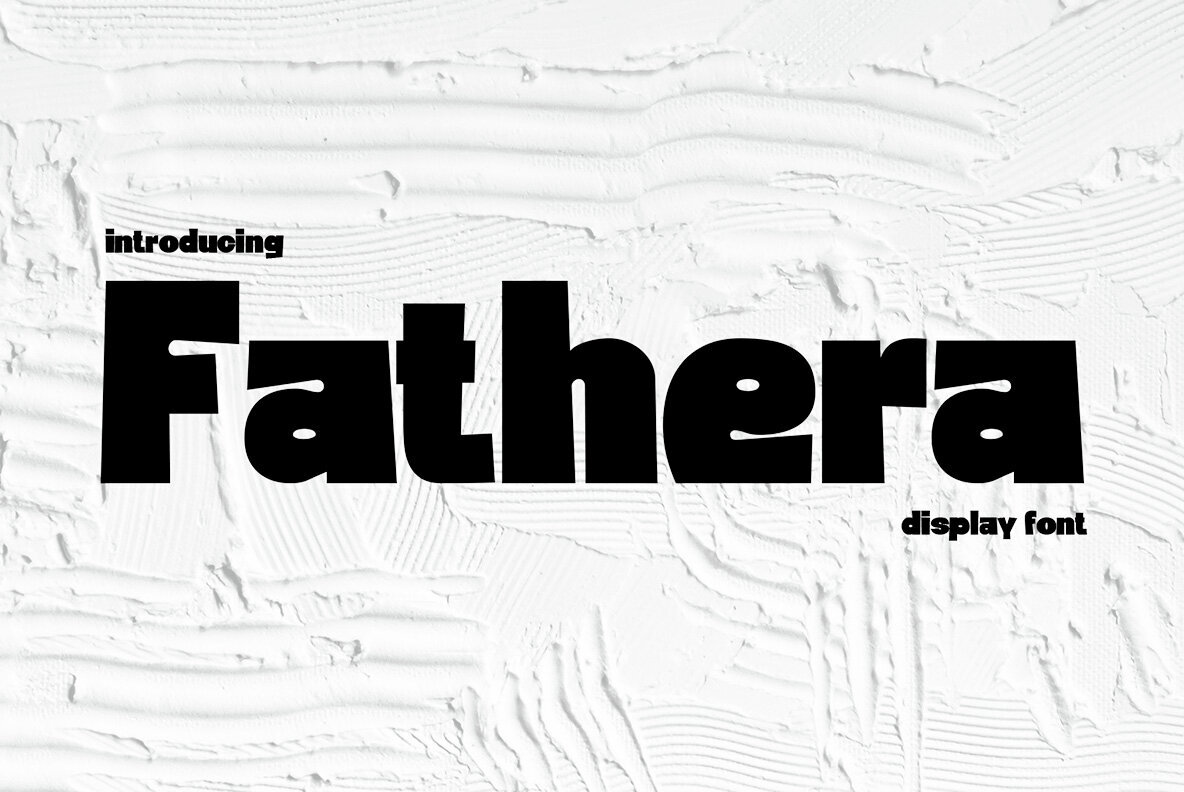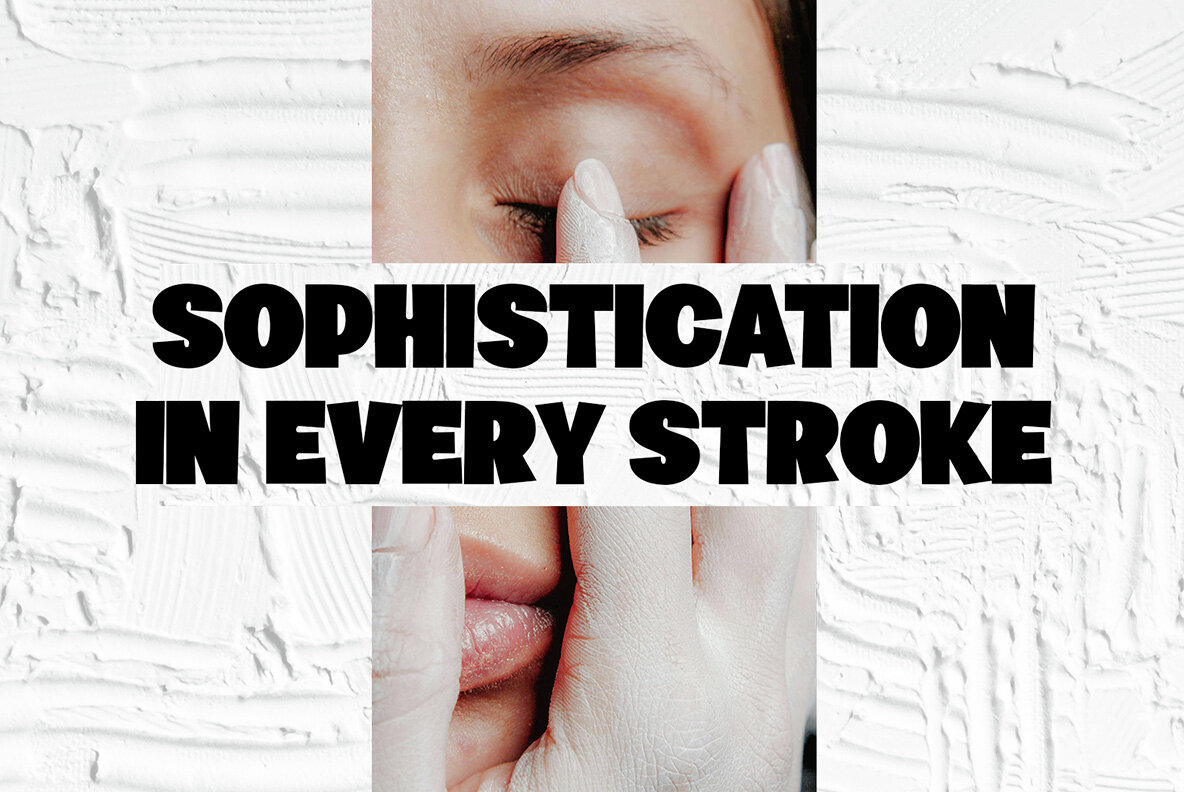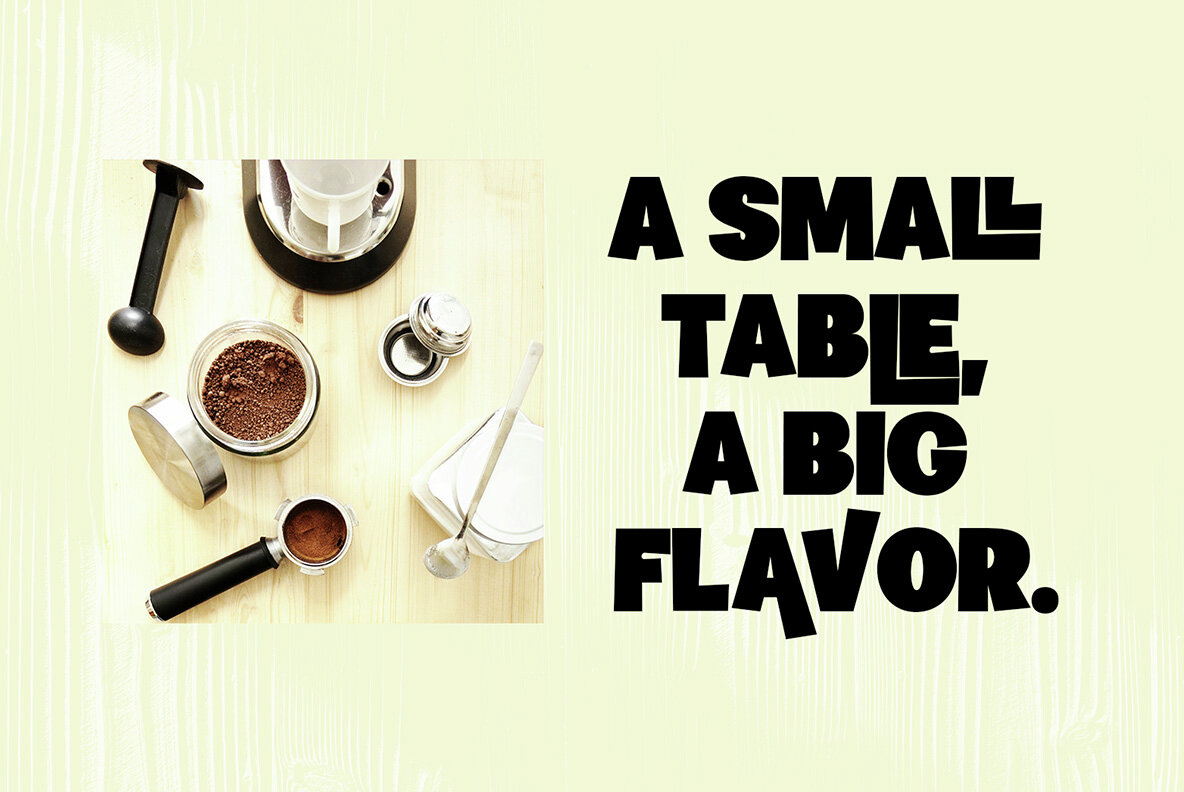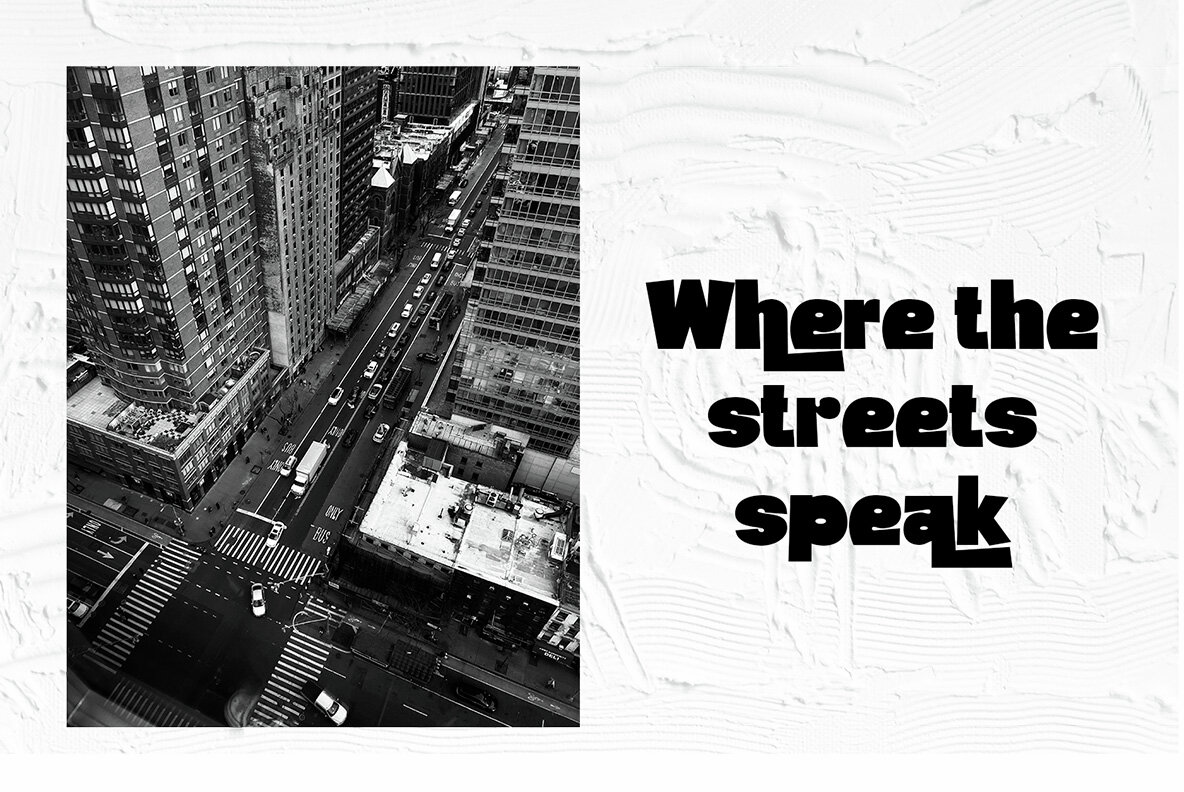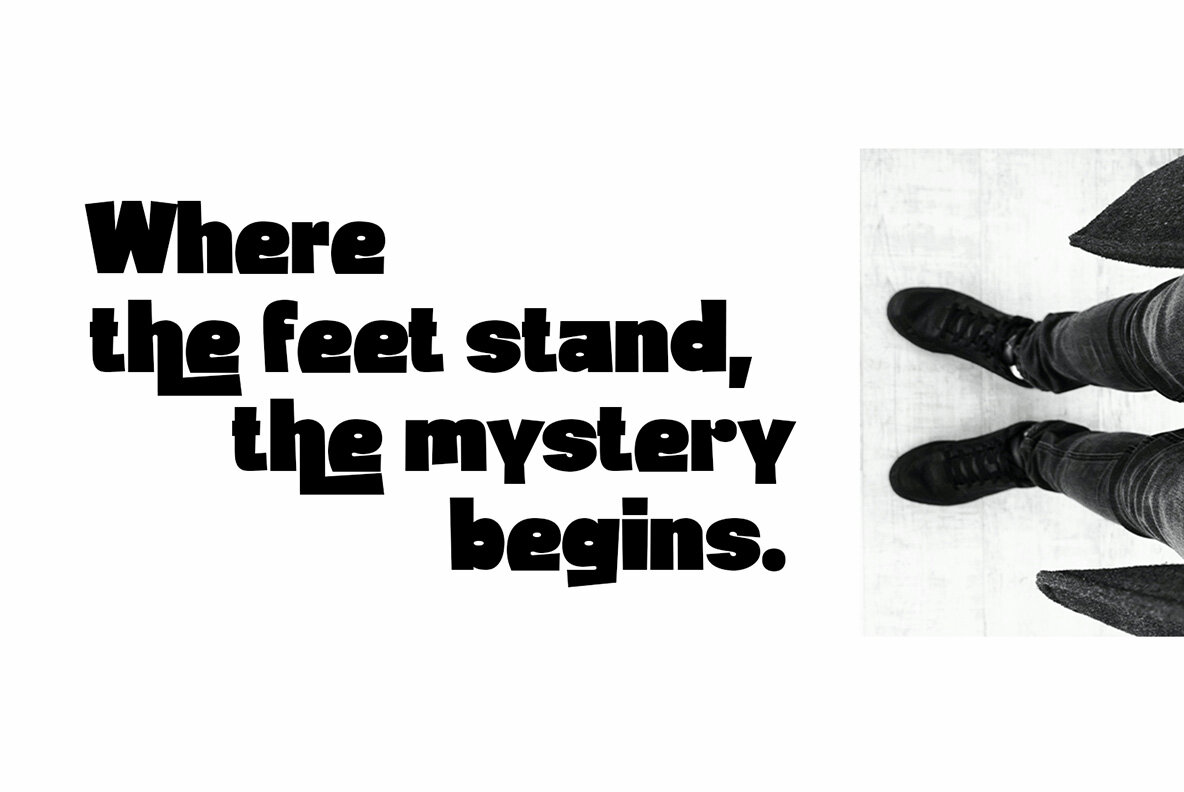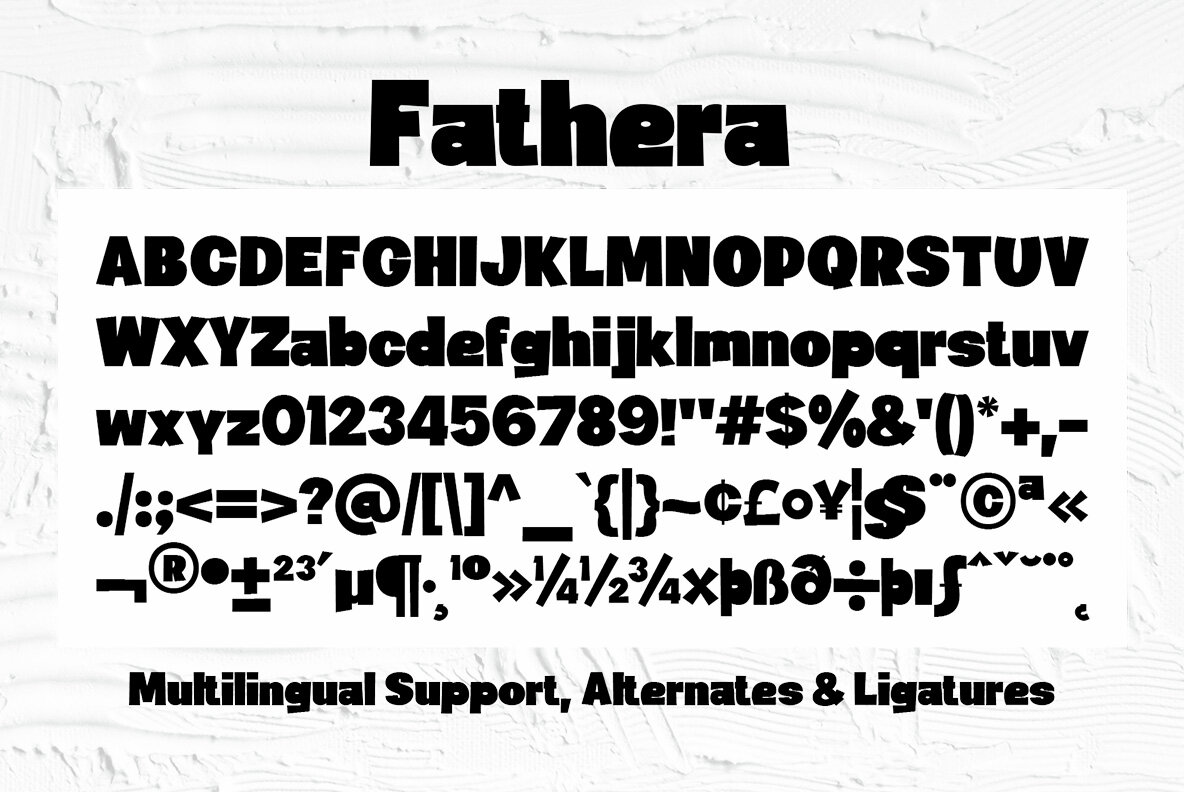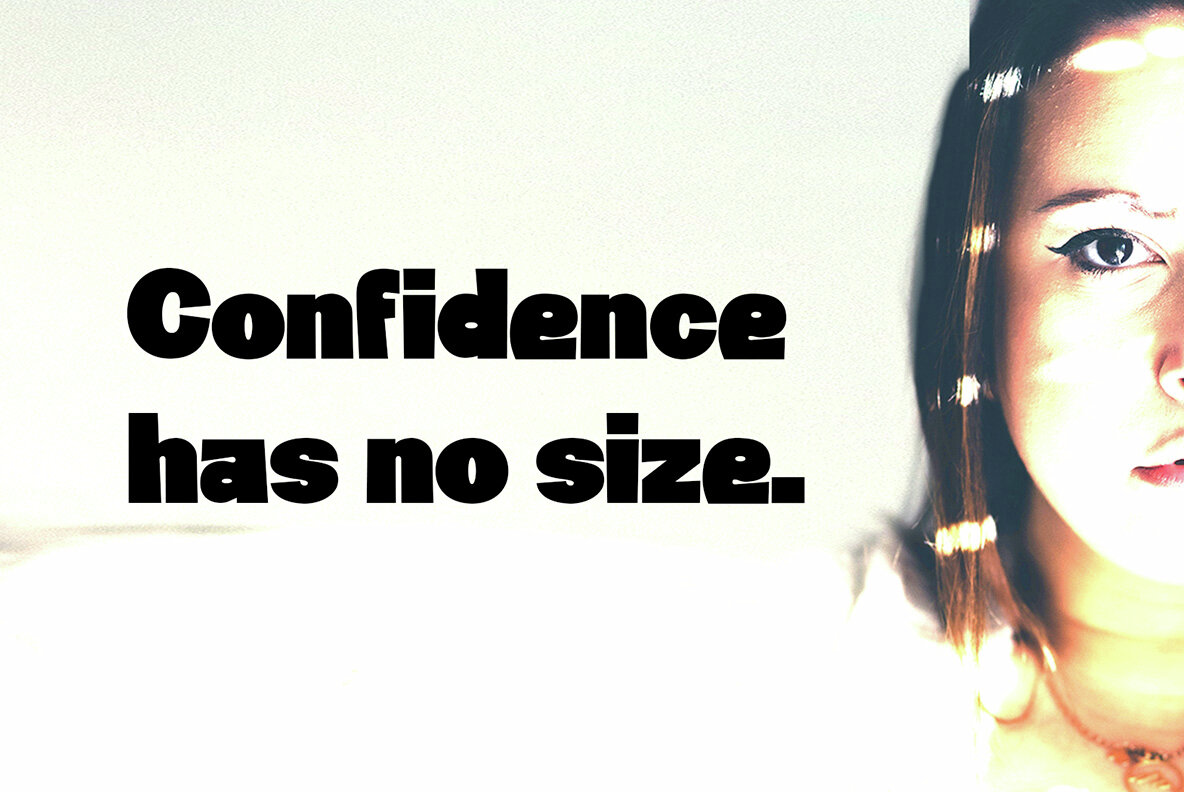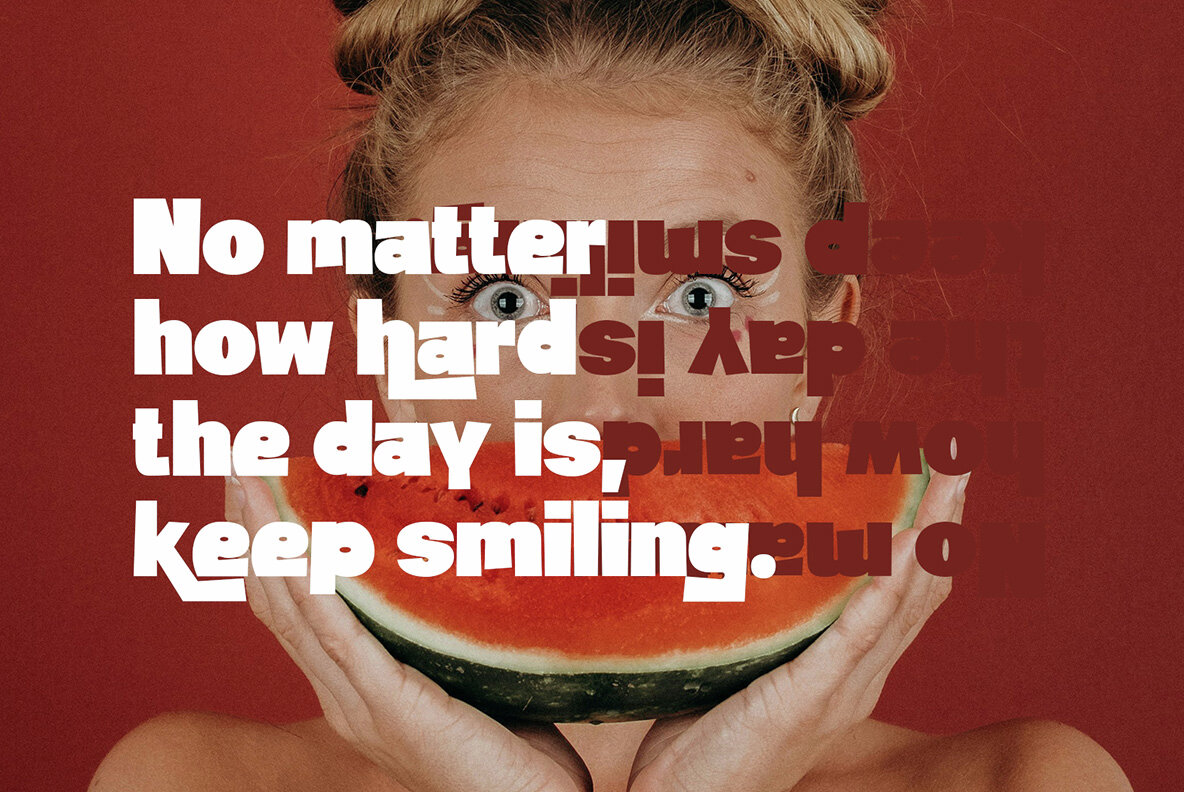
Fathera Font
Fathera
Fathera brings playful energy to modern design, blending contemporary style with subtle elegance. Its lively character stands out in both formal and creative contexts, making it well-suited for branding, packaging, posters, and projects that call for a distinctive touch. The variety of alternate characters and ligatures offers flexibility, allowing for expressive typographic compositions. This font’s versatility is enhanced by its robust multilingual support and thoughtful punctuation, ensuring seamless integration across different design needs. Fathera enables you to create unique layouts that capture attention while maintaining a refined presence.Fathera: A Playful Display Font with Modern Versatility